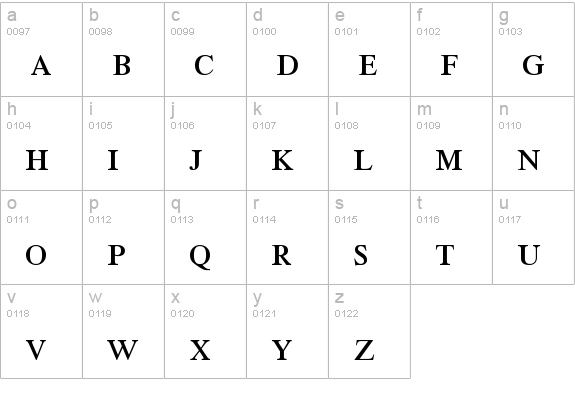
Introducing Greco OldStyle SSi Roman Small Caps font, a timeless and elegant typeface that exudes classic sophistication. With its graceful serifs and balanced proportions, this font is perfect for adding a touch of traditional charm to any project. The small caps feature adds a unique flair, making it ideal for headings, titles, and other prominent text elements. What makes Greco OldStyle SSi Roman Small Caps font even more appealing is that it is available for free download at FontsMarket.com. Whether you're working on a print design, website, or branding project, this versatile font will elevate your work with its timeless beauty and refined aesthetic. Embrace the elegance of Greco OldStyle SSi Roman Small Caps font and bring a touch of classic style to your designs today.